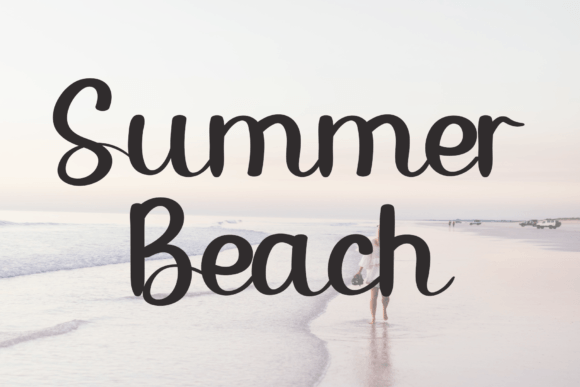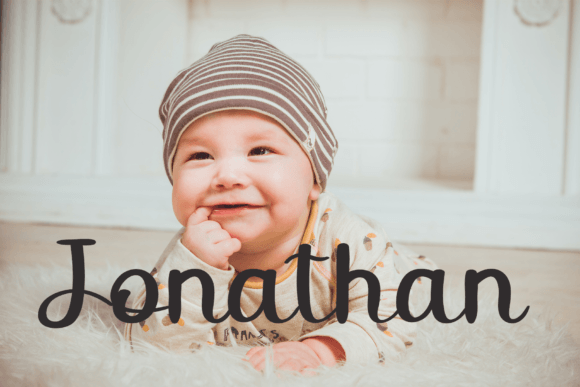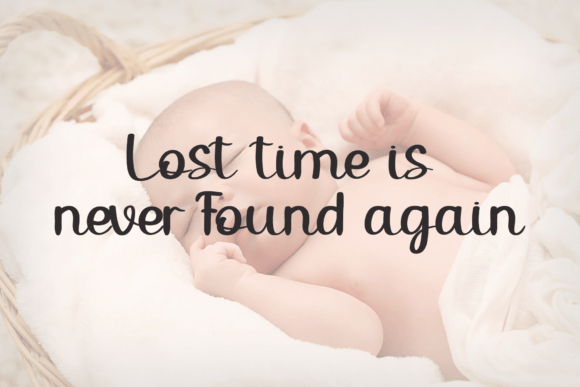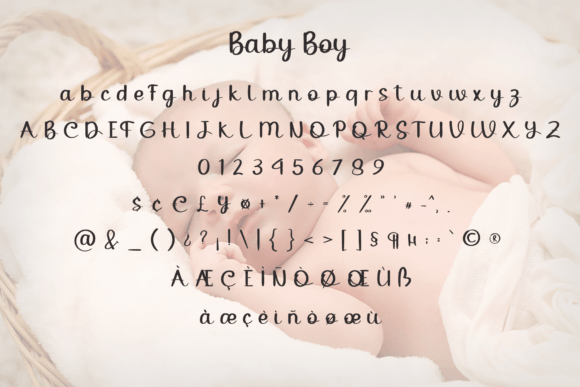
Baby Boy Font
Introducing Baby Boy Font, a charming and stylish handwritten script font designed to celebrate the joy and innocence of little boys. With its playful yet refined strokes, this font adds a delightful touch to baby shower invitations, nursery decor, and any design project that captures the magic of childhood.